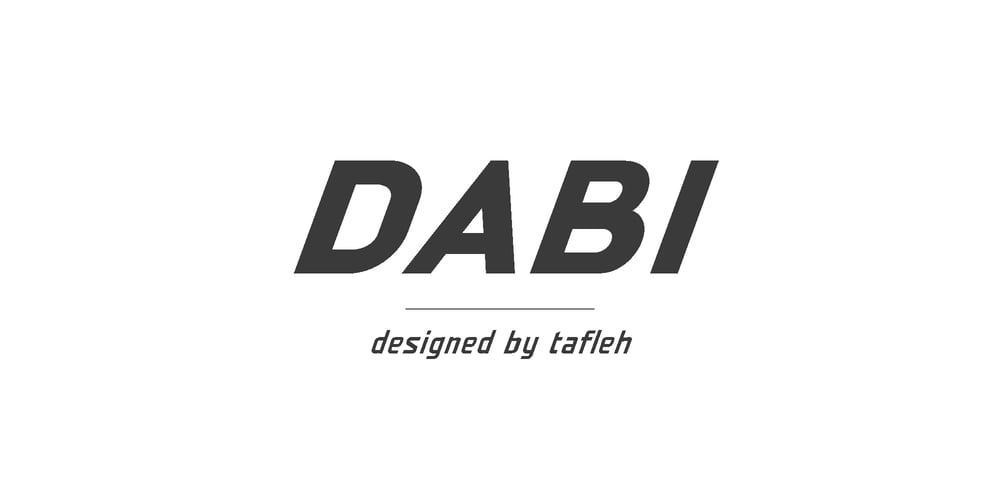
Dabi
Dabi font
Dabi Font Family was designed by Habaab El Fath and published by tafleh. Dabi contains 6 styles and family package options. Dabi is a bold sans serif type family of three weights plus matching italics. It is suitable for logos, titles, posters, etc. Made from a compilation of all his design projects.